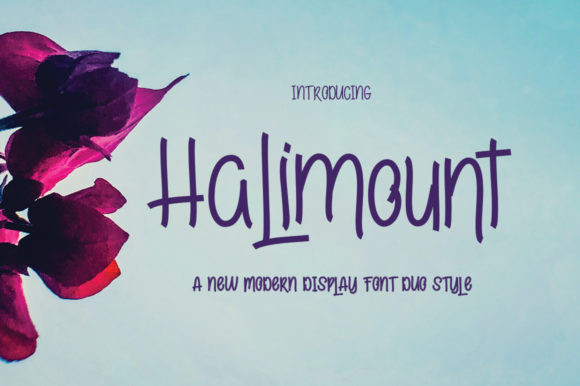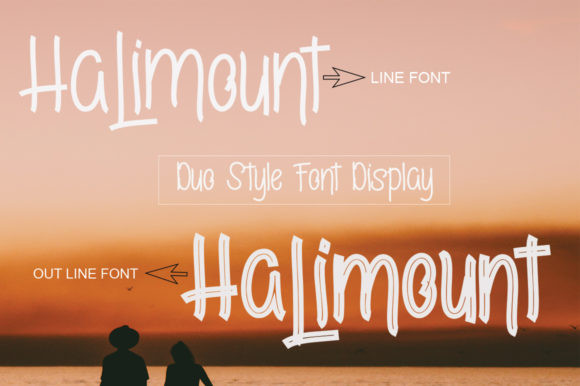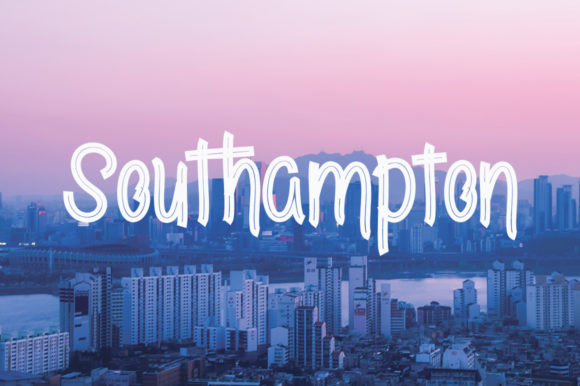
Halimount Font
Halimount is a beautiful display font. Its casual charm makes it appear wonderfully down-to-earth, readable and, ultimately, incredibly versatile. This versatility means that this font can be used in a wide variety of applications from stationery, to greeting cards- the only limit is your imagination!